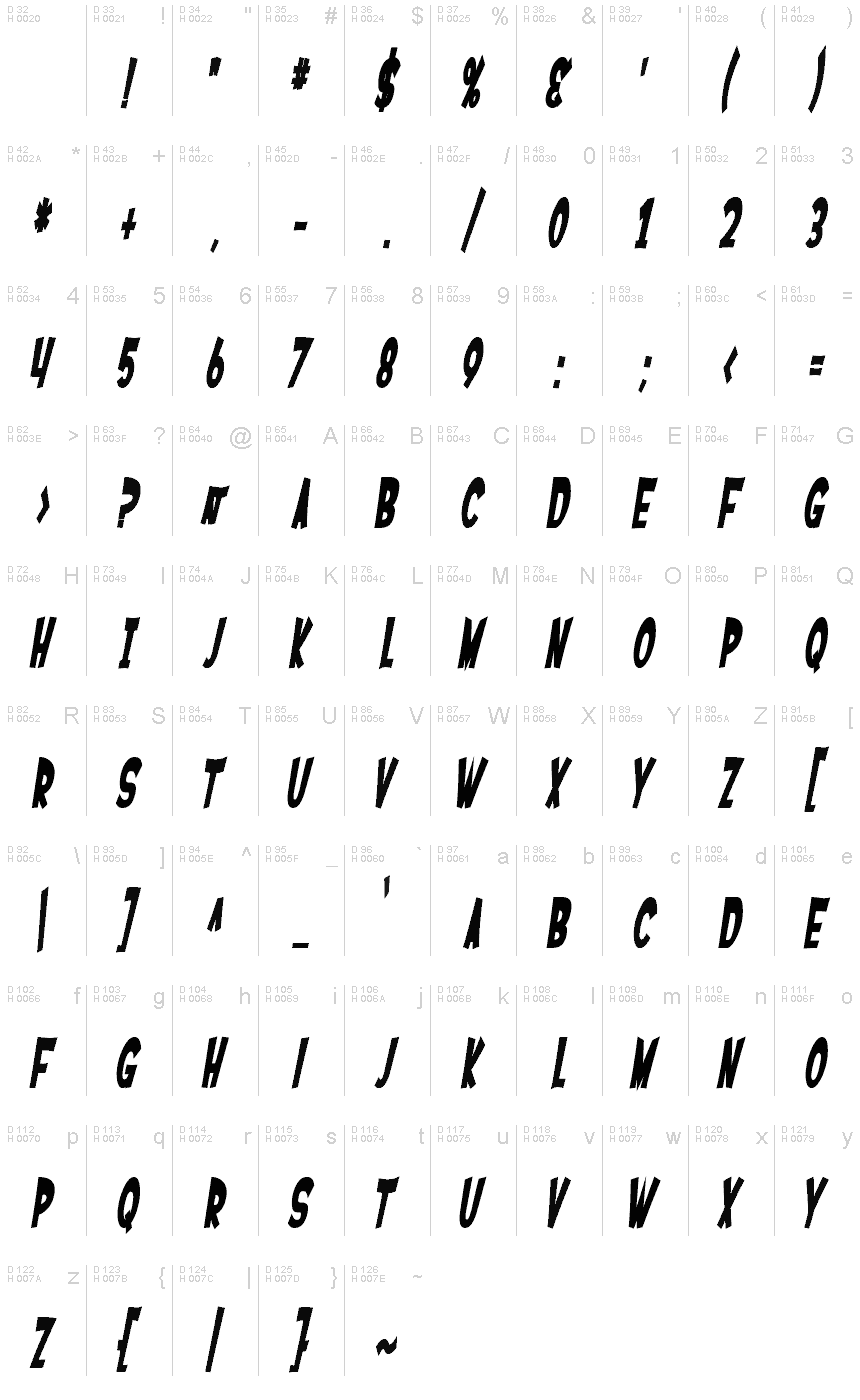
SF Ferretopia Bold Oblique
Dive into the playful world of typography with SF Ferretopia Bold Oblique, a standout member of the SF Ferretopia family. Crafted by ShyFonts Type Foundry, this display font exudes a comic style that is both engaging and delightfully expressive. The bold weight punches through the visual space with confidence, while the extra-condensed width ensures an impactful presence without overwhelming your design.
The oblique angle adds a dynamic twist, infusing energy and motion into every character. With its distinctive style, SF Ferretopia Bold Oblique is perfect for projects that demand attention with a touch of whimsy. Whether you're creating eye-catching headlines, vibrant advertisements, or playful graphics, this font is tailored to bring your creative visions to life with charm and vivacity.